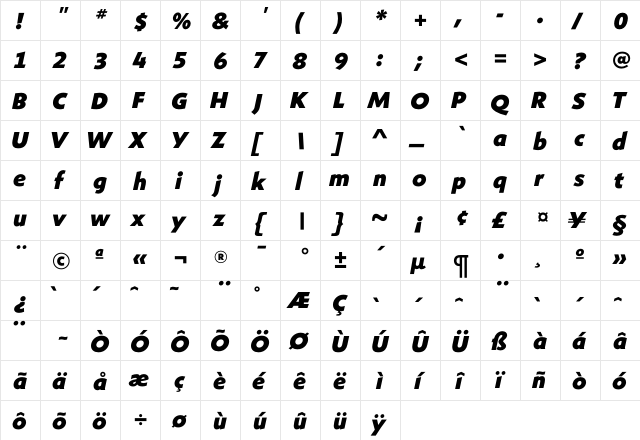
ShinnExtraBoldItalic Regular Font Preview
Design Context for ShinnExtraBoldItalic Typeface
ShinnExtraBoldItalic offers clean, dependable letterforms without strong stylistic allegiance, making it a practical choice for designers who need flexibility. The slanted form adds forward momentum and visual energy. The heavy weight commands attention and anchors typographic hierarchies.
Pro Tip: Try ShinnExtraBoldItalic for annotation and caption copy alongside an upright companion — the contrast in angle creates a dynamic but ordered typographic system.